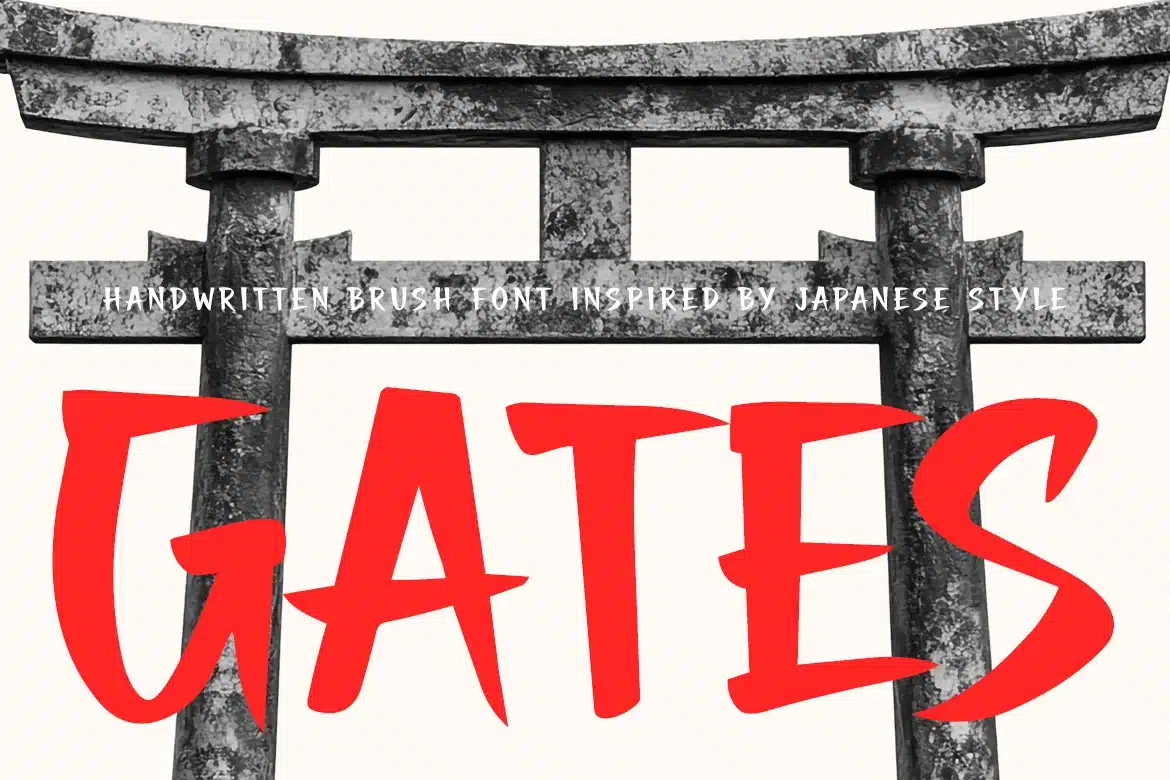
Shoga – Japanese Brush Handwritten Font
Shoga Japanese Brush Handwritten Font is an expressive typeface inspired by traditional Japanese brush lettering and ink calligraphy. Its bold strokes, sharp edges, and natural ink flow create an authentic handcrafted look that feels dynamic, artistic, and full of cultural character. The organic brush texture gives each letter a unique rhythm while maintaining strong visual impact.
Designed for projects that seek an Asian-inspired aesthetic, this font works beautifully in bold and expressive layouts. Whether used for branding, posters, restaurant design, or cultural visuals, Shoga delivers a striking brush style with a modern creative edge.